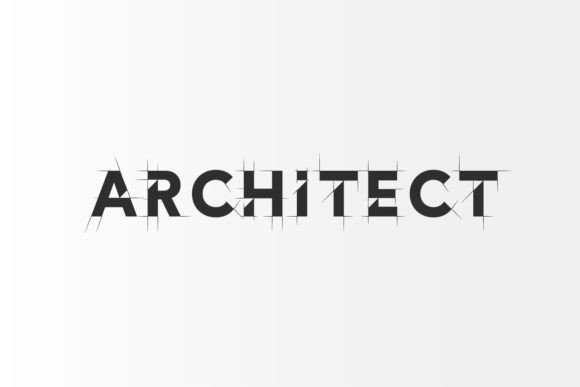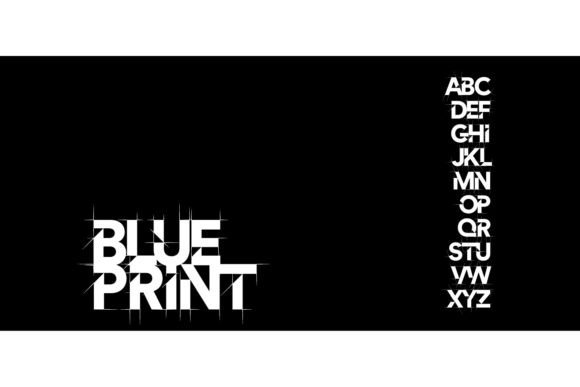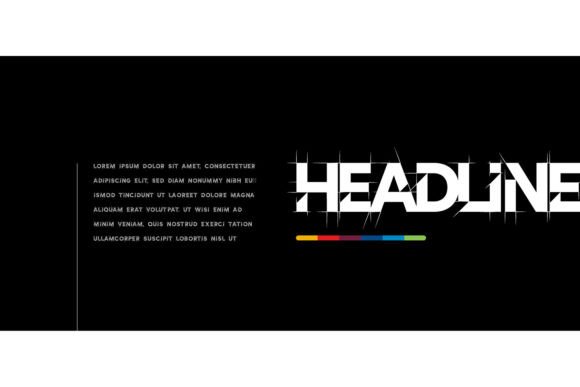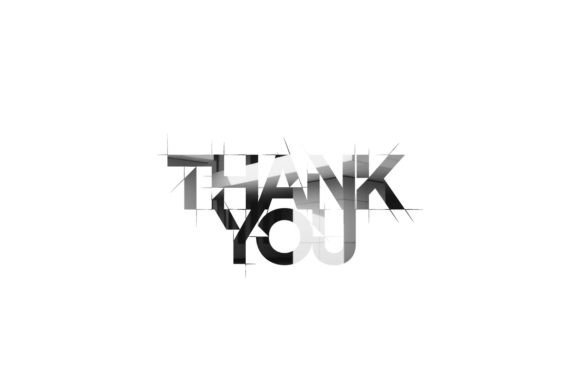
Architect is a modern and stylish architecture font that captures the essence of contemporary design with its clean lines and geometric shapes. Its sharp edges and balanced proportions make it perfect for architectural plans, branding materials, and editorial designs that require a sense of sophistication and modernity. This font is sure to add a touch of sleekness to any project.
Architect Font